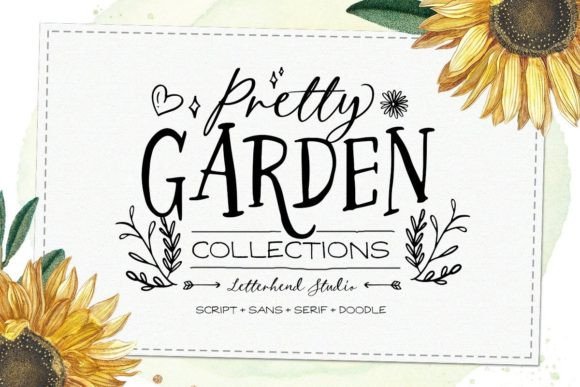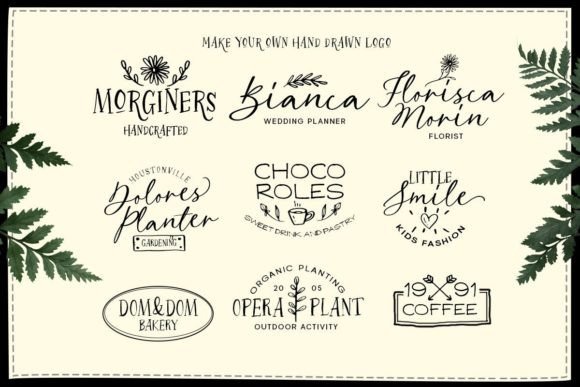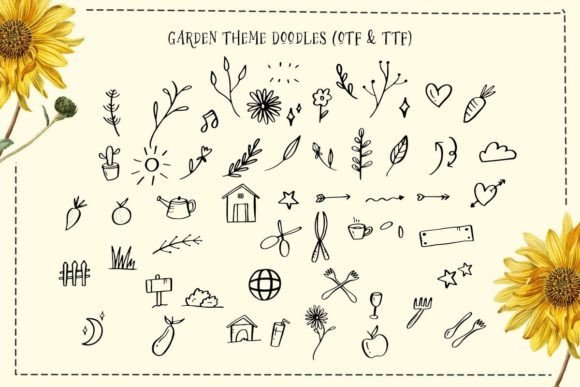
Pretty Garden Font
About the Pretty Garden Font
Meet Pretty Garden Font, a stunning font that brings a touch of elegance and professionalism to any design. Pretty Garden is a spectacular font trio (sans, script, and serif) with a cute bonus dingbat font. Lovely and a bit quirky, this font will brighten up each of your designs. Add it confidently to your projects, and you will love the results.
Pretty Garden’s playful personality makes it ideal for projects requiring a touch of whimsy and charm, such as children’s books, branding for cafes or boutiques, wedding stationery, or social media graphics. Its versatility across three styles allows for varied applications within a single project. However, avoid using the script or serif styles for large blocks of body text; they are best suited for headlines, short captions, and decorative elements. The sans-serif style might work for short paragraphs but readability diminishes quickly in longer passages.
For optimal visual harmony, pair Pretty Garden’s sans-serif with a clean, geometric sans-serif like Montserrat for a modern feel, or a neutral sans-serif like Open Sans for improved readability in supporting text. The script font complements elegant serifs such as Playfair Display for a classic, sophisticated look, while the quirky serif style could be paired with a bold, condensed sans-serif like Bebas Neue for a striking contrast.
The overall effect is a friendly, approachable aesthetic. The dingbat font adds further opportunities for playful visual enhancements within the design, but should be used sparingly to maintain clarity and prevent visual clutter.
Pretty Garden Font Usage Examples
Pretty Garden Font Example